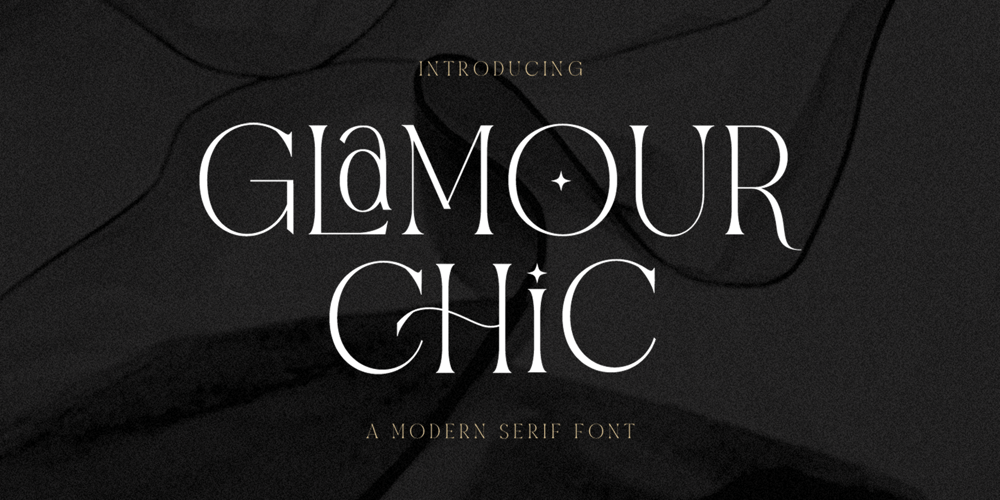
Glamour Chic Font Family was designed by Sarid Ezra, Dzikrul Aulia and published by Bale Type. Glamour Chic contains 1 styles and family package options. Glamour Chic is an all caps serif with elegant and stylish looks. With unique uppercase and lowercase, you can use it at the same time and combining both in the same word. And with ligatures, this font will make your project more stunning and attractive. Glamour Chic also support multilingual.